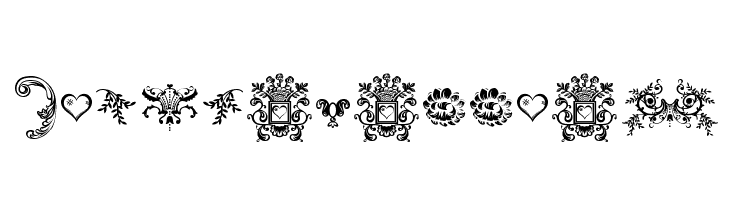
A decorative font with unique illustrative characters replacing traditional letters and numbers.
Ornate floral and botanical dingbat set with detailed line art.